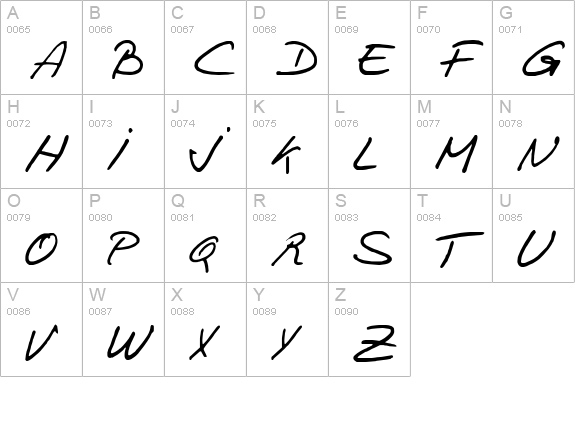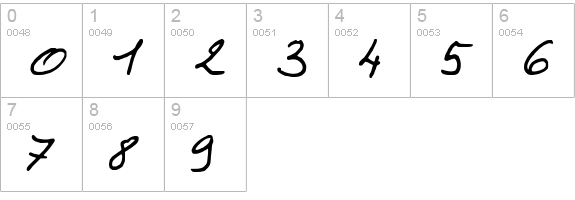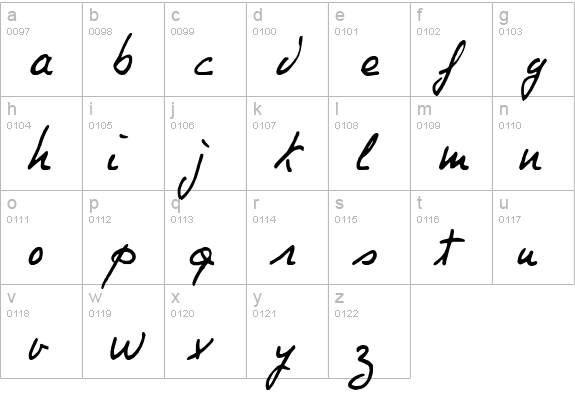
Philing Font Details
Introducing Philing Font, a modern and versatile typeface that is perfect for adding a touch of sophistication to your designs. With its clean lines and elegant curves, Philing Font effortlessly captures attention and creates a sense of refined beauty. What sets Philing Font apart is not just its stunning aesthetics, but also the fact that it is available for free. Yes, you read that right – this exceptional font can be yours without spending a dime. We believe that creativity should be accessible to all, and that's why we have made Philing Font freely available to download at FontsMarket.com. Whether you are a professional designer, a creative enthusiast, or simply someone who appreciates the power of typography, Philing Font offers endless possibilities. Its versatility allows it to be used in a wide range of design projects, from logos and branding to posters and invitations. The possibilities are truly limitless. With its wide range of weights and styles, Philing Font provides you with the flexibility to create unique and eye-catching designs. Whether you need a bold and impactful headline or a delicate and elegant script, Philing Font has got you covered. But Philing Font is more than just a pretty face – it is also incredibly easy to work with. Its carefully crafted letterforms ensure legibility at any size, making it suitable for both print and digital applications. Plus, its extensive character set includes multilingual support, allowing you to reach a global audience. So, why wait? Download Philing Font today and elevate your designs to new heights. With its stunning aesthetics, versatility, and the fact that it is freely available at FontsMarket.com, Philing Font is the perfect choice for anyone looking to make a lasting impression. Let your creativity flow and watch as your designs come to life with the beauty and elegance of Philing Font.